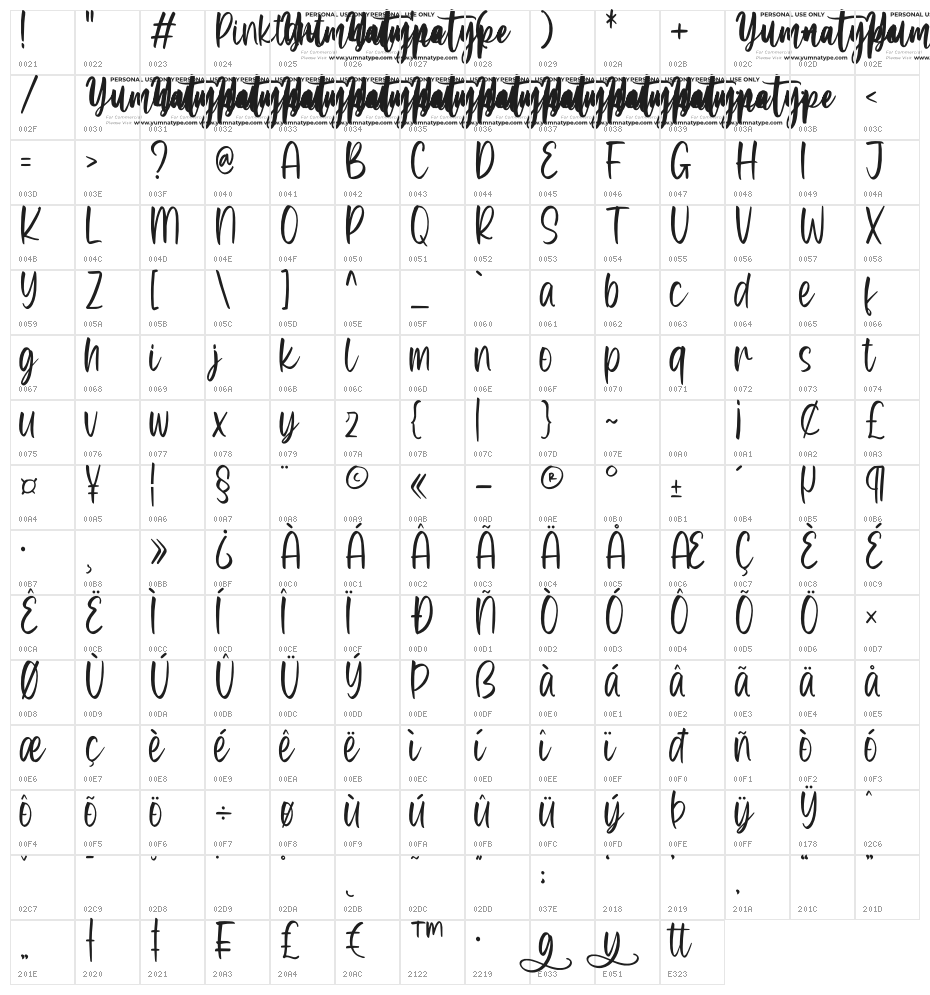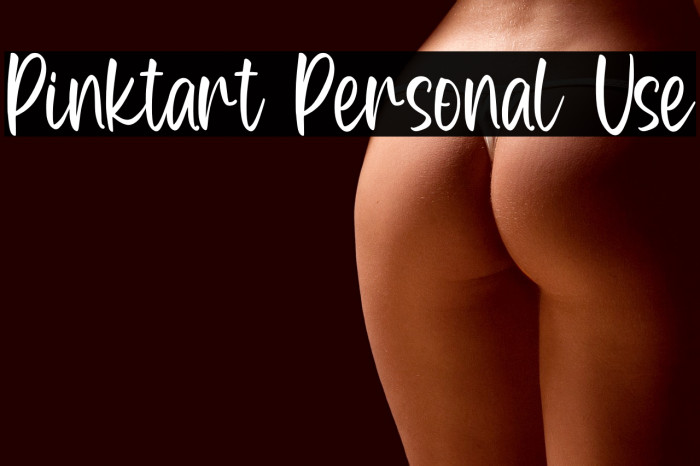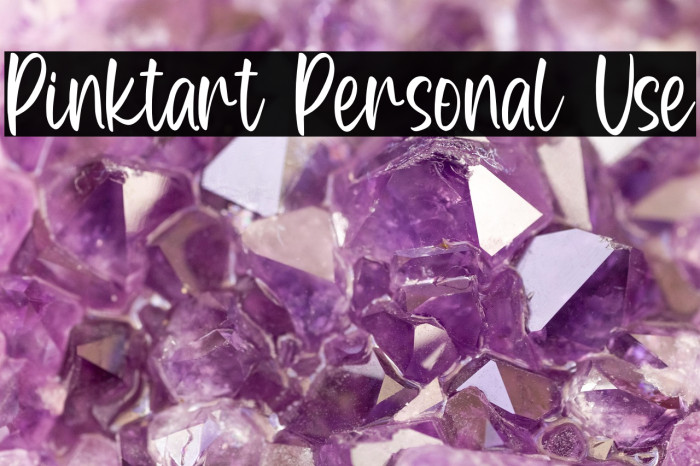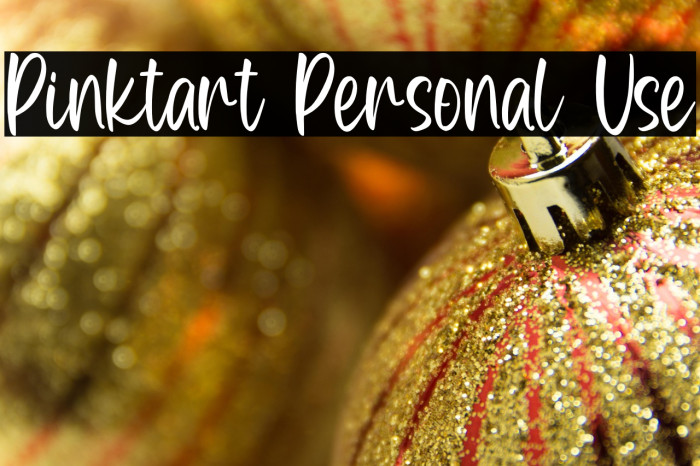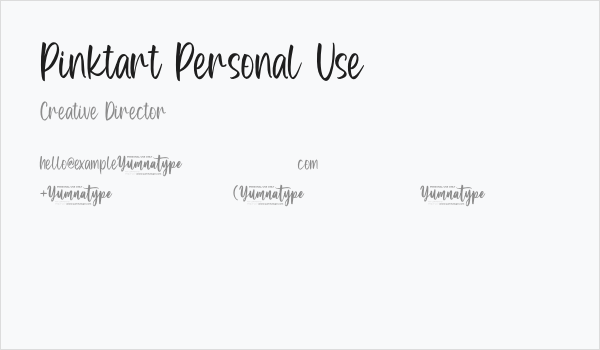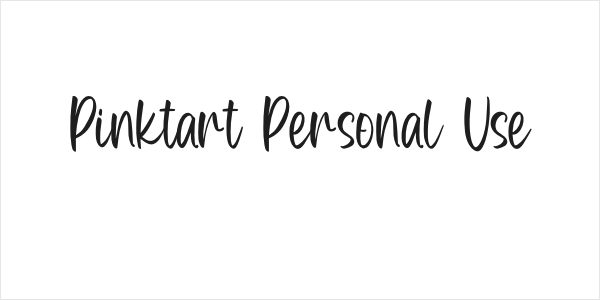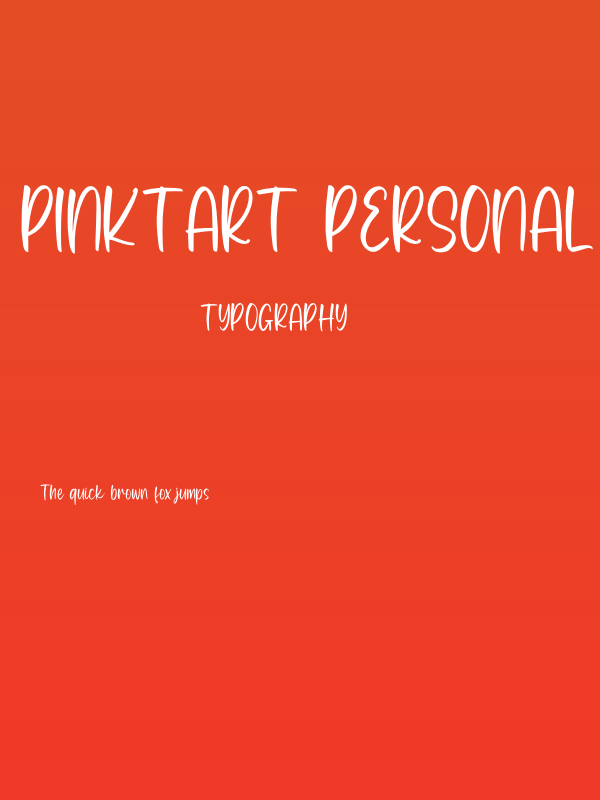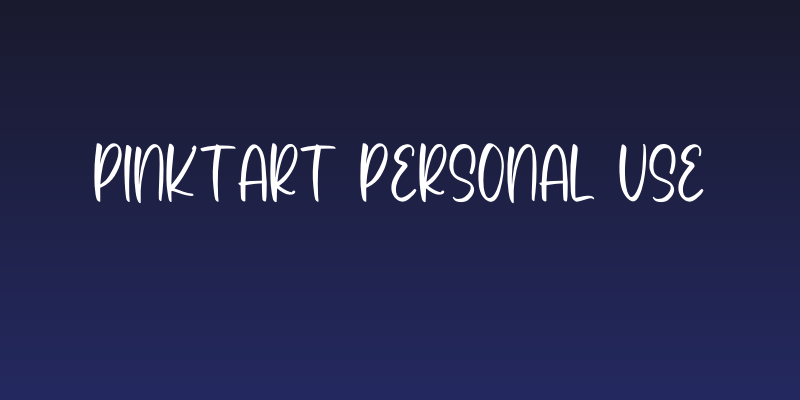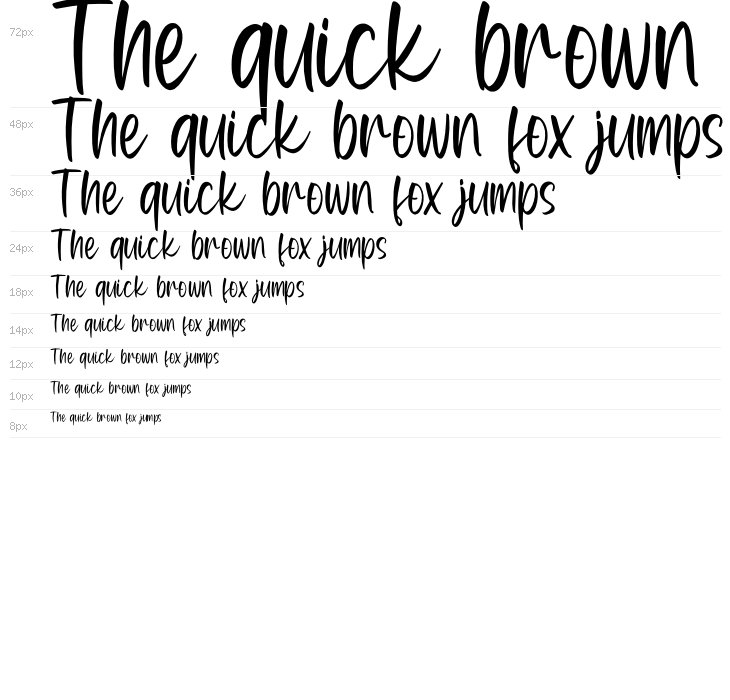
Pinktart Personal Use Font
Pinktart Personal Use Description
This font features a playful and energetic script style with a handwritten appearance. The characters are bold and fluid, with a consistent stroke width that gives it a lively and dynamic feel. The uppercase letters are tall and slightly narrow, while the lowercase letters maintain a smooth, flowing connection. The overall design is informal yet stylish, making it suitable for creative projects. The font includes a full set of uppercase and lowercase letters, numbers, and a selection of special characters, ensuring versatility in design applications.
| Proposed Projects | Ideal for greeting cards, invitations, social media graphics, and branding projects that require a personal touch. |